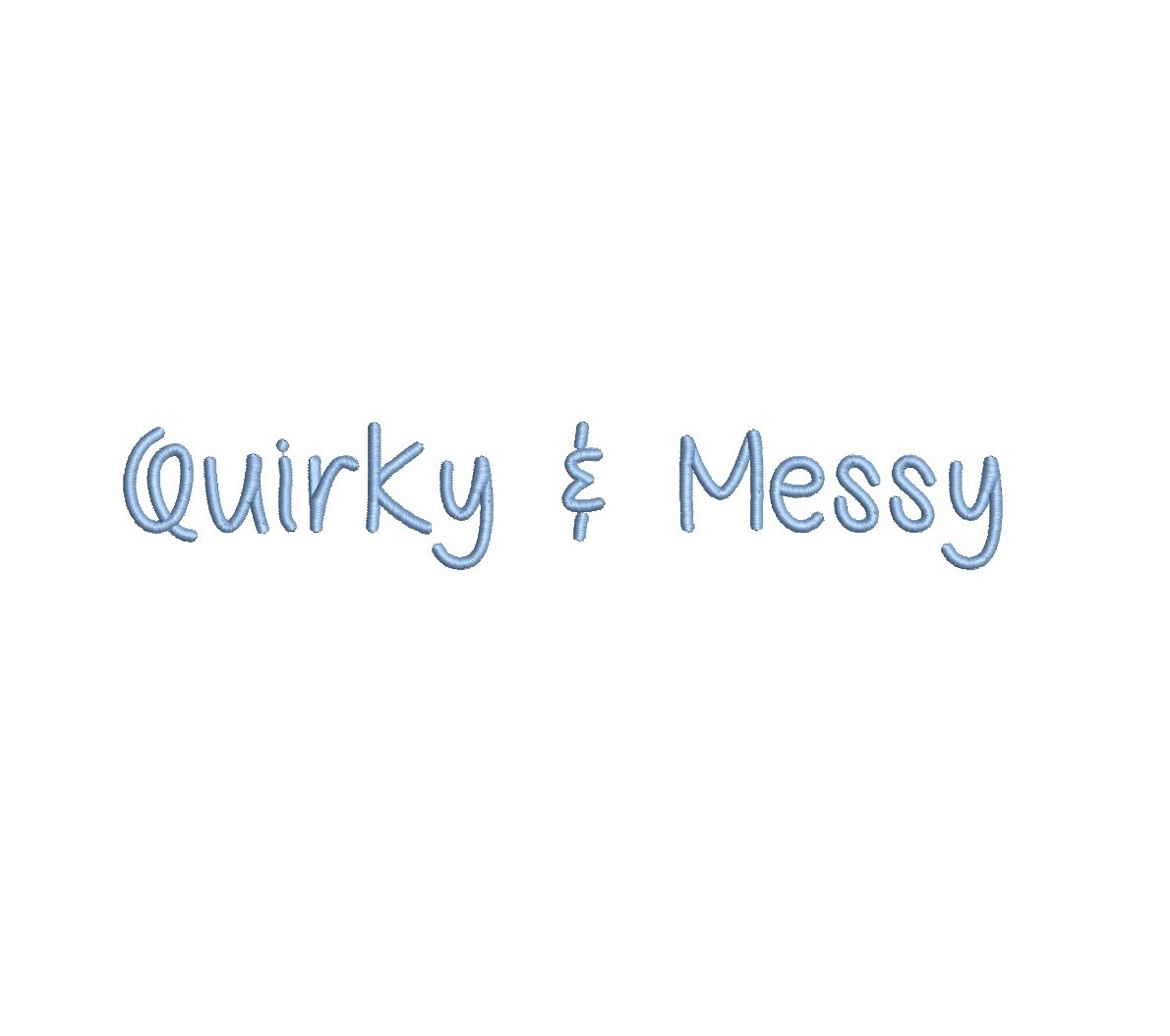
Discover the playful charm of 'Quirky & Messy Regular ESA' font, tailor-made for embroidery enthusiasts seeking unique and whimsical designs. This delightful typeface adds character and liveliness to your creations, setting them apart from the ordinary. Seamlessly integrate it into your digitizing workflow with compatibility for Wilcom Studio e4.5.6 and Hatch 3 versions and above. Its quirky details and intentionally messy strokes give your embroidery projects a fun and artistic flair. Ideal for playful monograms, quotes, and decorative elements, this ESA font sparks creativity and brings joy to every stitch. Embrace the creativity with 'Quirky & Messy Regular ESA' font today!